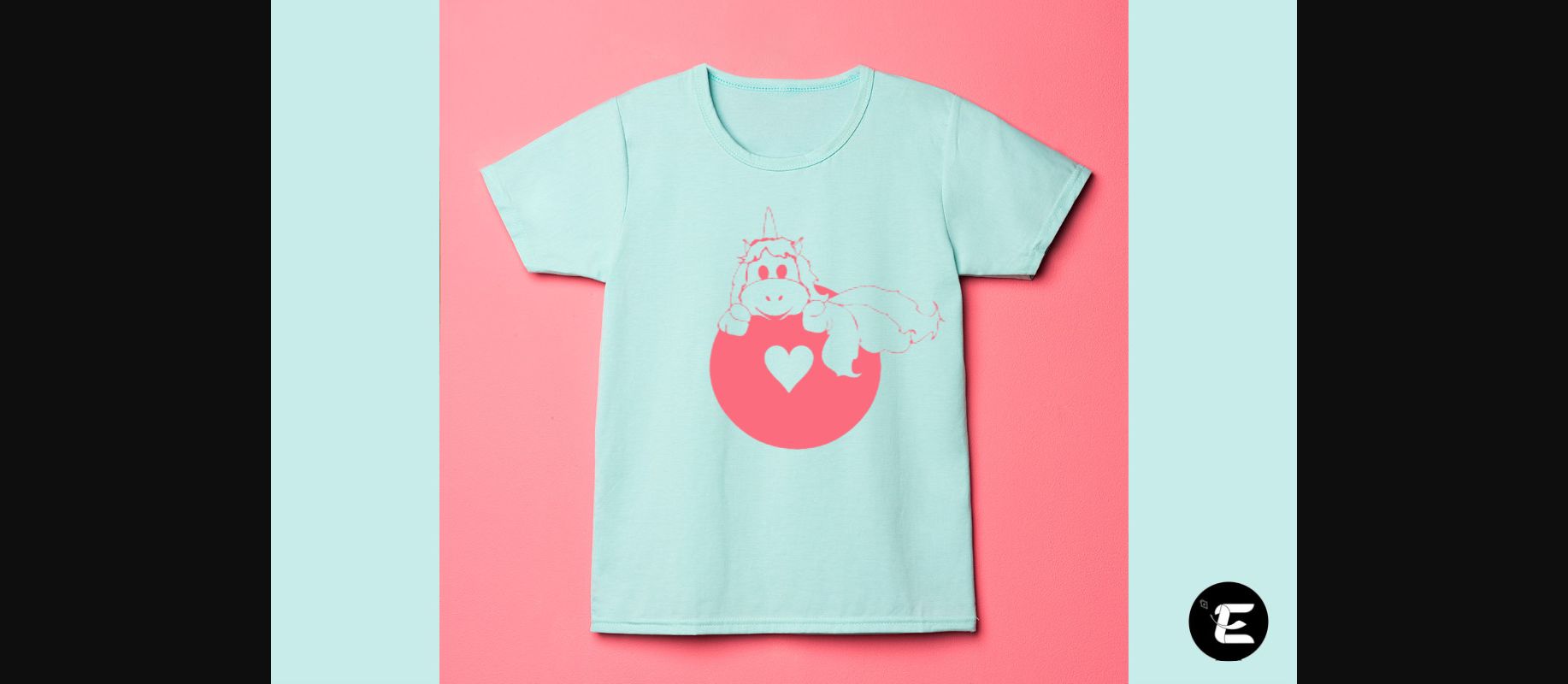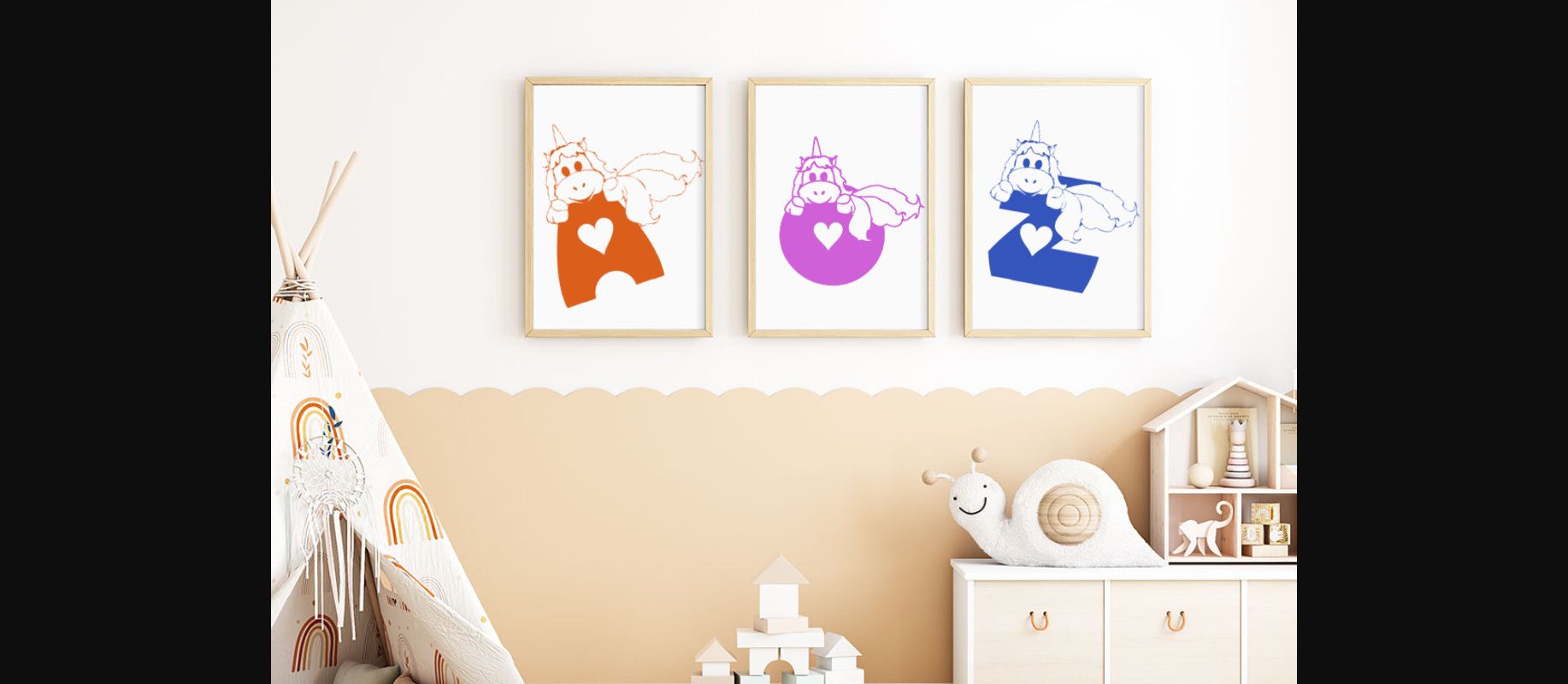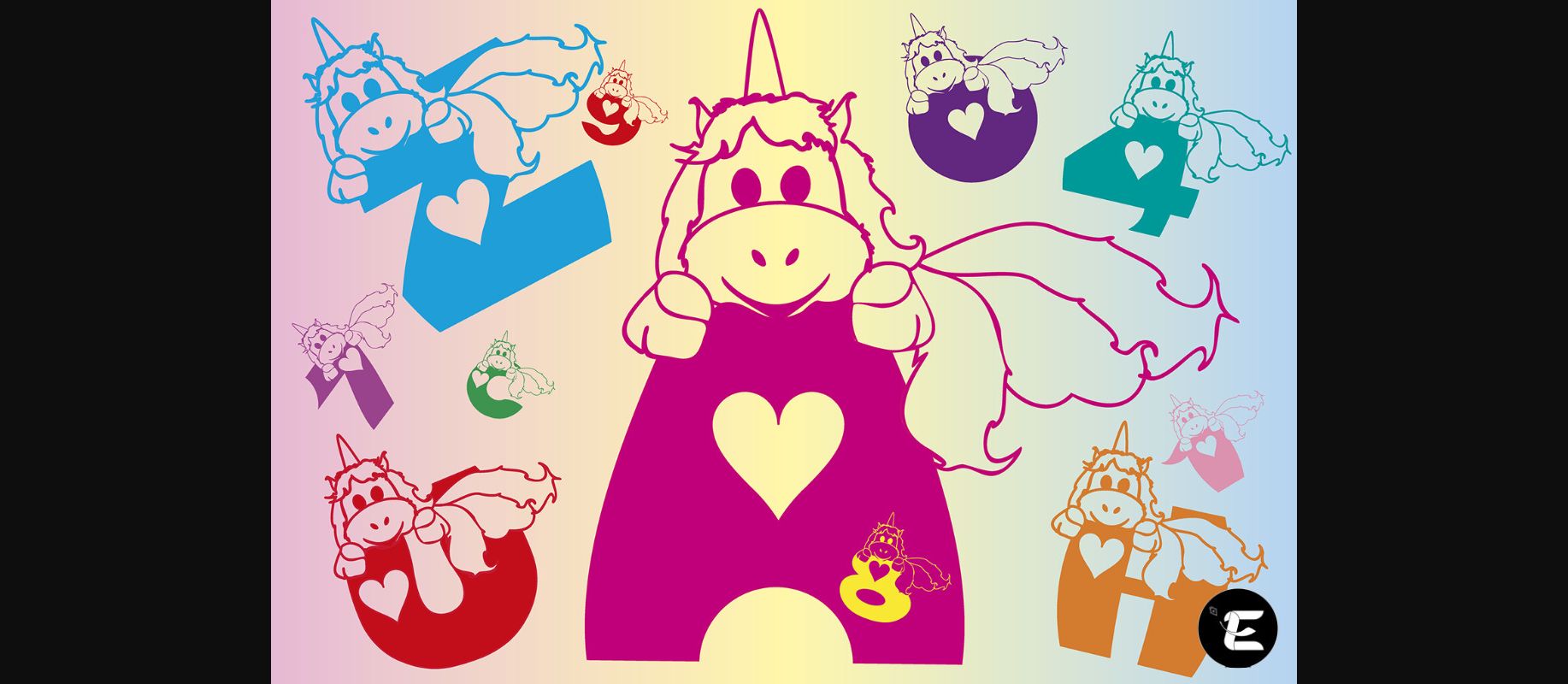
Unicorn Font
About Unicorn Font
Unicorn is a modern and playful font that you can use for t-shirt creations, mugs, children’s books, wall art, stickers, quotes, coloring books, school projects, and many more!